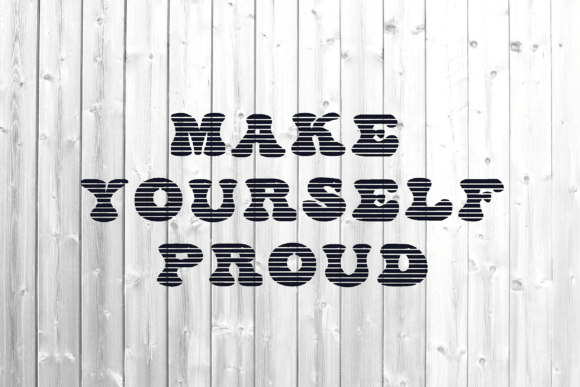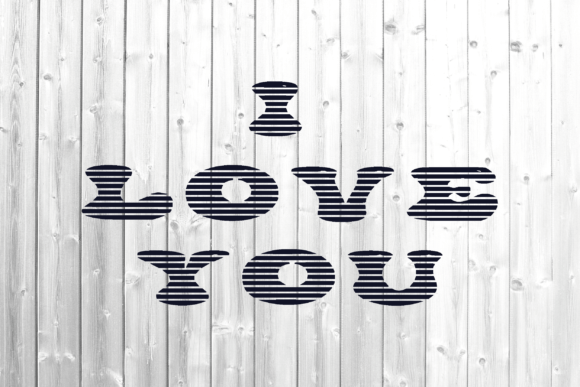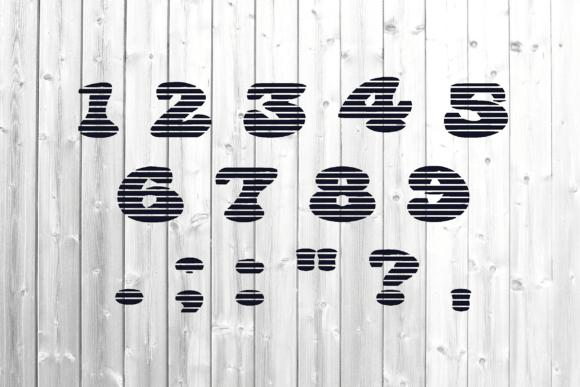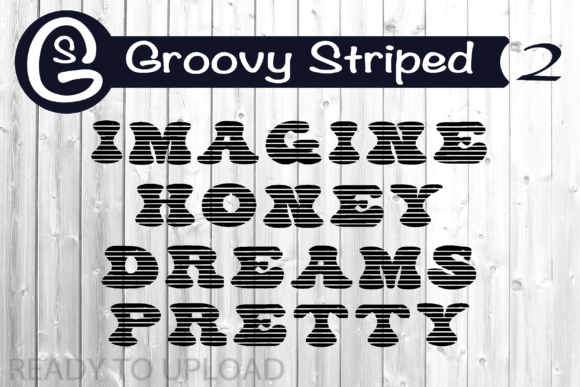
Introduction to Groovy Striped Font
Groovy Striped is a fun, cool, retro display font.
Its cute and unique style makes it incredibly fitting to a large pool of designs The only limit is your imagination.